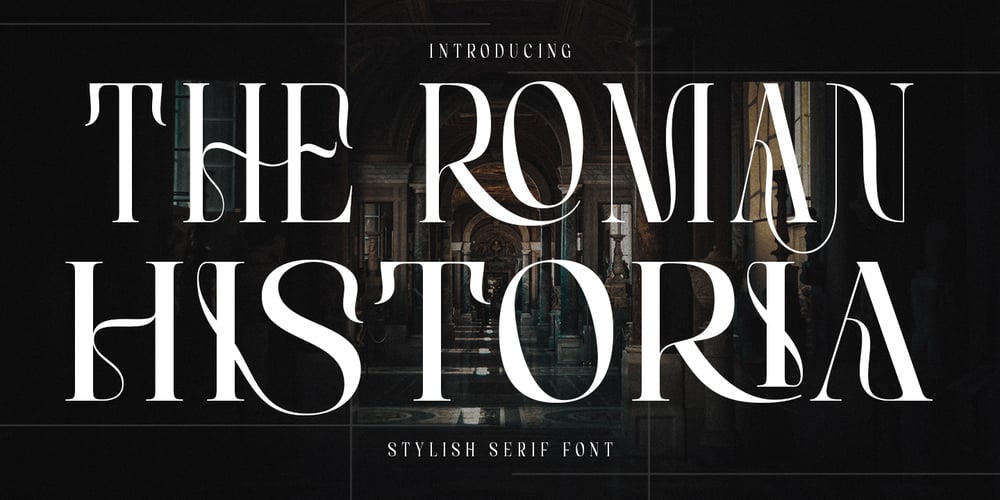
The Roman Historia Font Family was designed by M Akmal and published by Mega Type. The Roman Historia contains 2 styles and family package options. The Roman Historia is a stylish serif font that will make your design projects stand out and be stylish! The Roman Historia is crafted with care to ensure premium quality and a luxurious feel. Ligatures and alternatives make this typeface unique and stand out from typical serif fonts.The Roman Historia is perfect for branding, logo designs, headlines, titles, magazines, name card, labels, product packaging, book titles, movie titles, fashions magazines or any other type of design.Contains full set:-The Roman Historia Regular and Condensed-Uppercase-Lowercase-Alternative-Ligatures-PUA encoded-Punctuation-Number-Multilingual support.Have fun using The Roman Historia!!Feel free to follow, like and share.Thank you very much for checking my store!